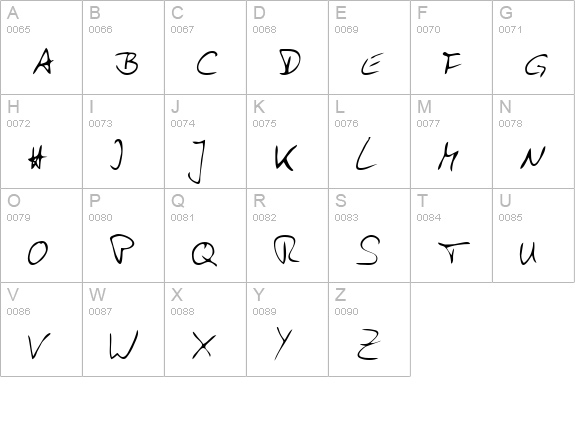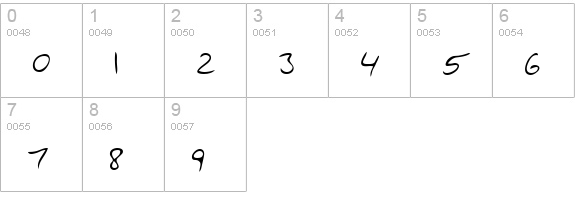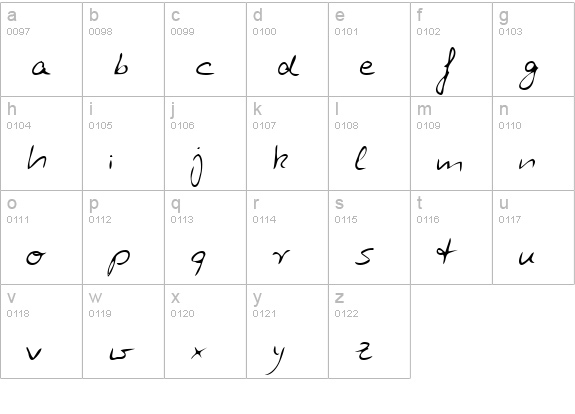
Zuerbig Regular Font Details
Zuerbig Regular is the standard, neutral variant in the Zuerbig typeface family \xE2\x80\x94 well suited to general body text, paragraphs, and standard typographic work.
Zuerbig Regular font is a versatile and modern typeface that effortlessly combines elegance with readability. With its clean lines and balanced proportions, Zuerbig Regular is perfect for a wide range of design projects, from branding to editorial design. This font exudes a sense of sophistication and professionalism, making it an excellent choice for both print and digital applications. What sets Zuerbig Regular apart is its versatility - it can be used for headlines, body text, logos, and more, adding a touch of class to any project. Whether you're working on a website, a magazine layout, or a business card, Zuerbig Regular is sure to make a lasting impression. Best of all, Zuerbig Regular is completely free to download at FontsMarket.com. So why wait? Elevate your designs with this beautiful and timeless font today.